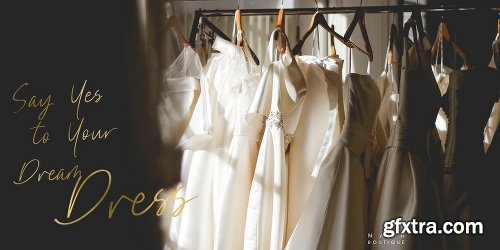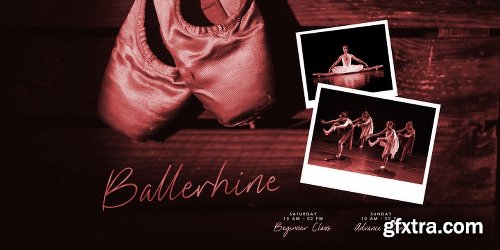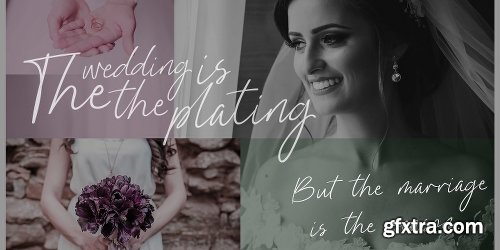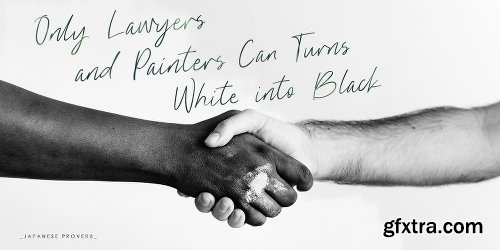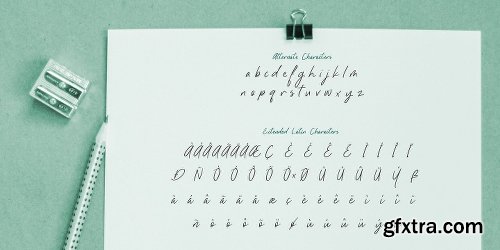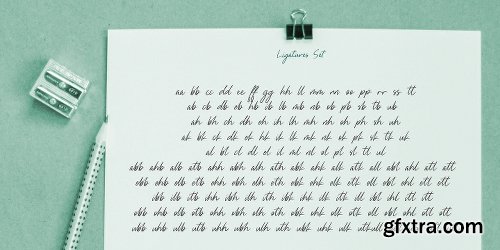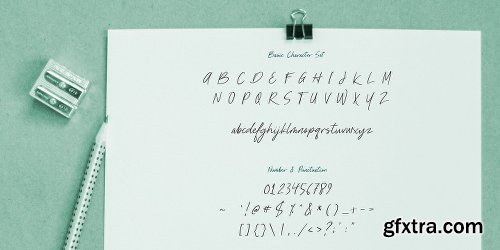
Nathallie Font
Nathallie created with stylist and handwritten characters. This handwritten font was PUA encoded.
Nathallie is a natural handwritten style that comes with Extended Latin Characters.
Nathallie works perfectly for logos, display, product branding, wedding invitation card, stationary, packaging, clothing, flyer, apparel, magazines, brochures, lable, posters, badges, etc.
Nathallie comes with 415 glyphs and 26 alternate characters contain with opentype features (supported with contextual alternates mode).
Nathallie also comes with 164 extended ligatures that allowing you to make stuff looks more exclusive and pro standard.